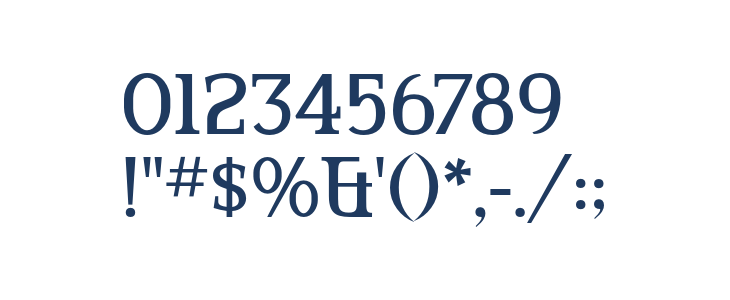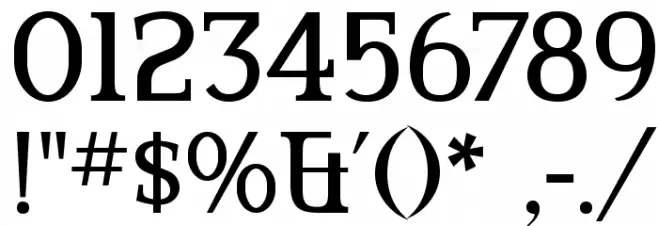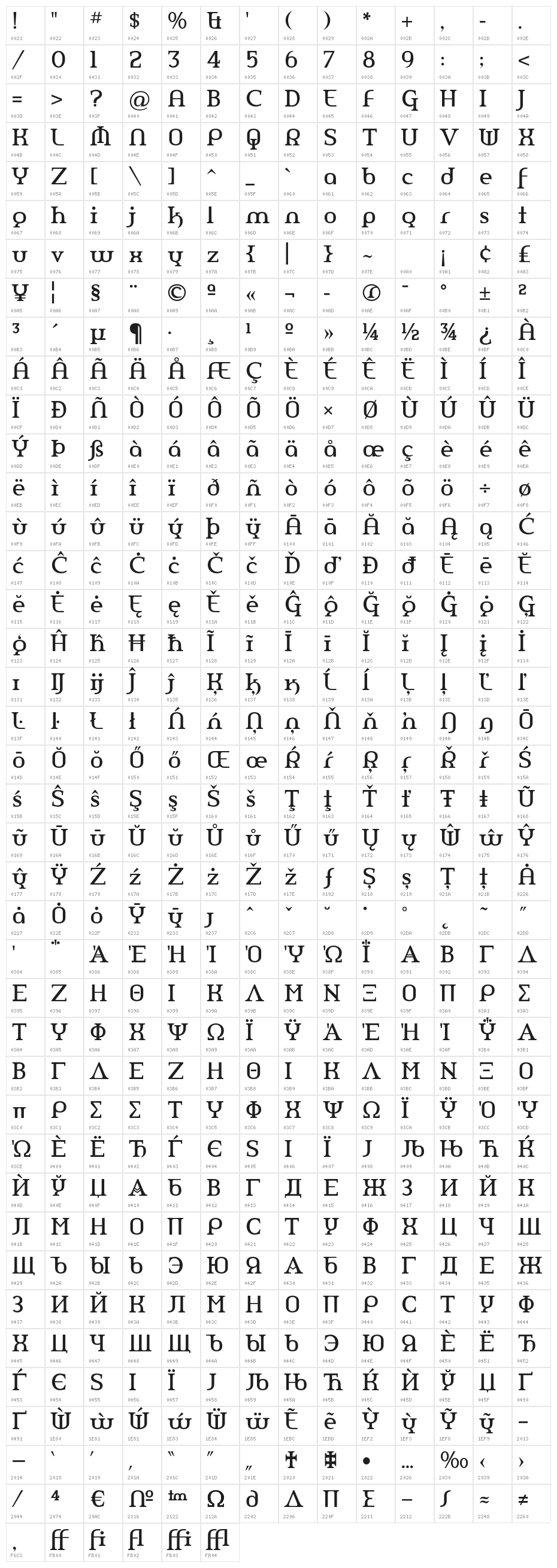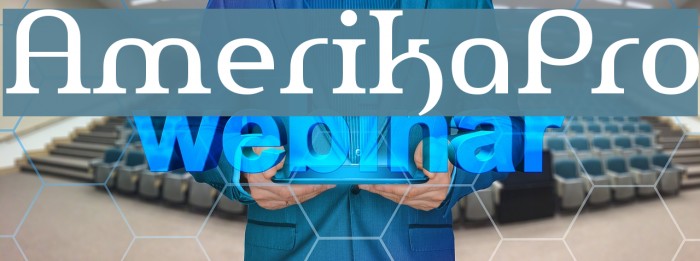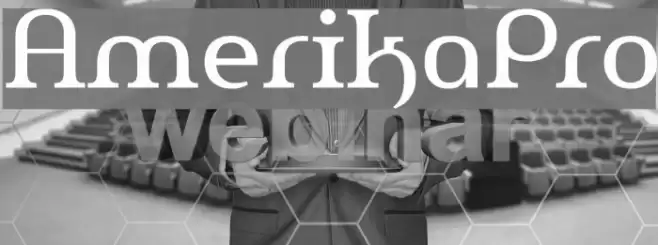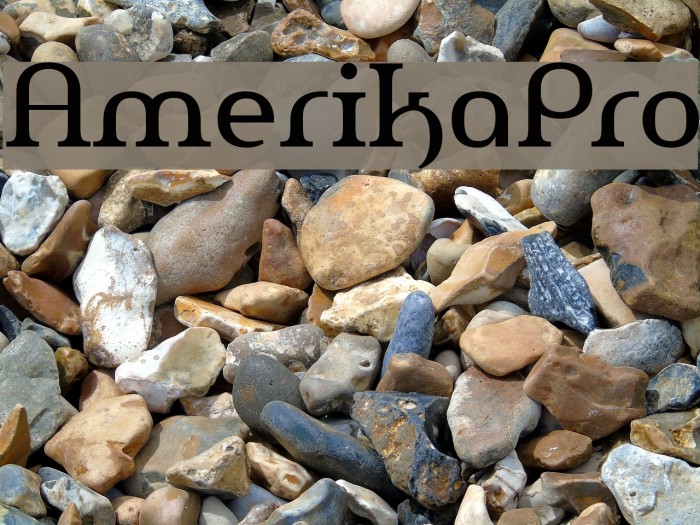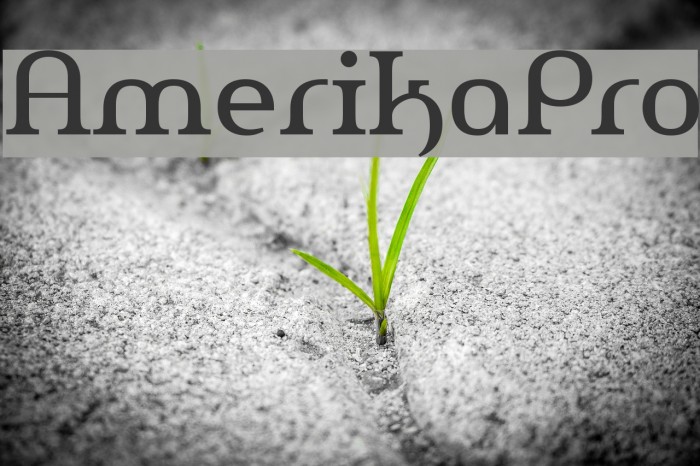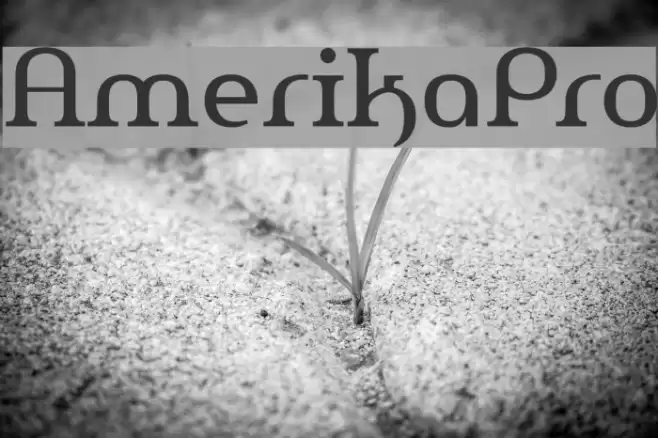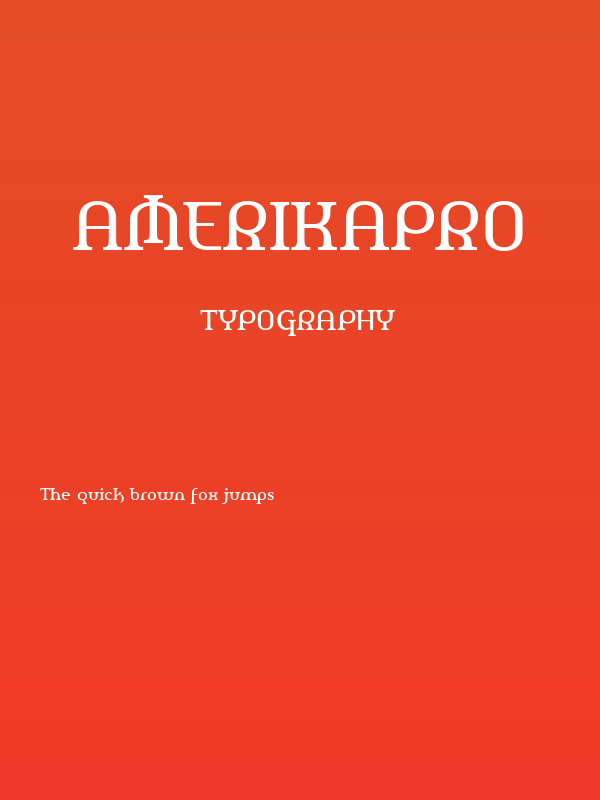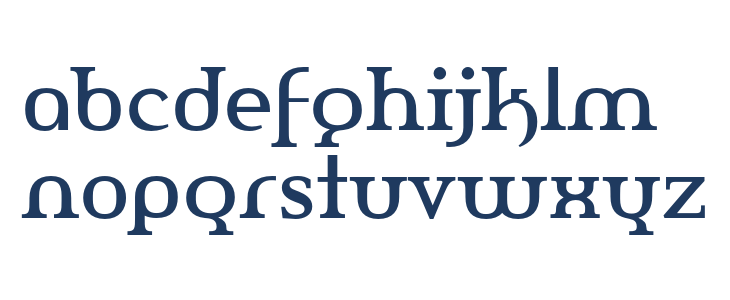
AmerikaPro Font
AmerikaPro Description
This font features a unique blend of modern and classic elements, characterized by its distinct serifs and elegant curves. The uppercase letters are bold and commanding, with a slight curvature that adds a touch of sophistication. The lowercase letters maintain a consistent style, offering a harmonious flow with their rounded forms. Numbers are clear and easily readable, making them suitable for various applications. Special characters are thoughtfully designed, maintaining the font's overall aesthetic. The font's balance between boldness and elegance makes it versatile for both formal and creative projects.